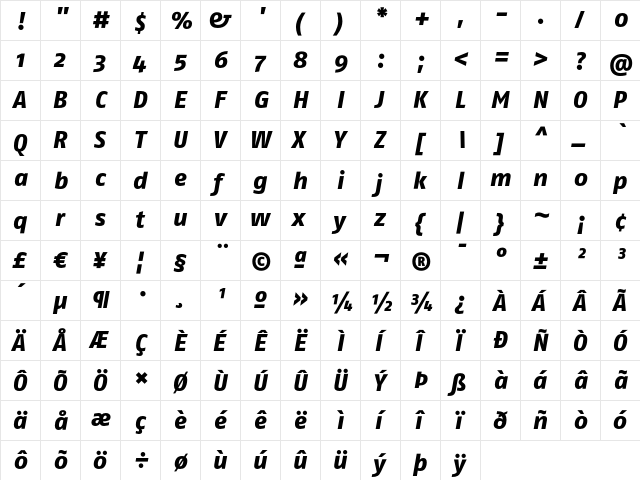
FagoNo ExtraBoldItalic
Design Context for FagoNo Typeface
FagoNo is a composed and adaptable typeface that performs quietly and consistently across a wide range of design contexts. The dynamic lean of this cut emphasises speed and emphasis in any layout. Its bold stroke weight gives it real presence on the page.
Pro Tip: Try FagoNo for annotation and caption copy alongside an upright companion — the contrast in angle creates a dynamic but ordered typographic system.